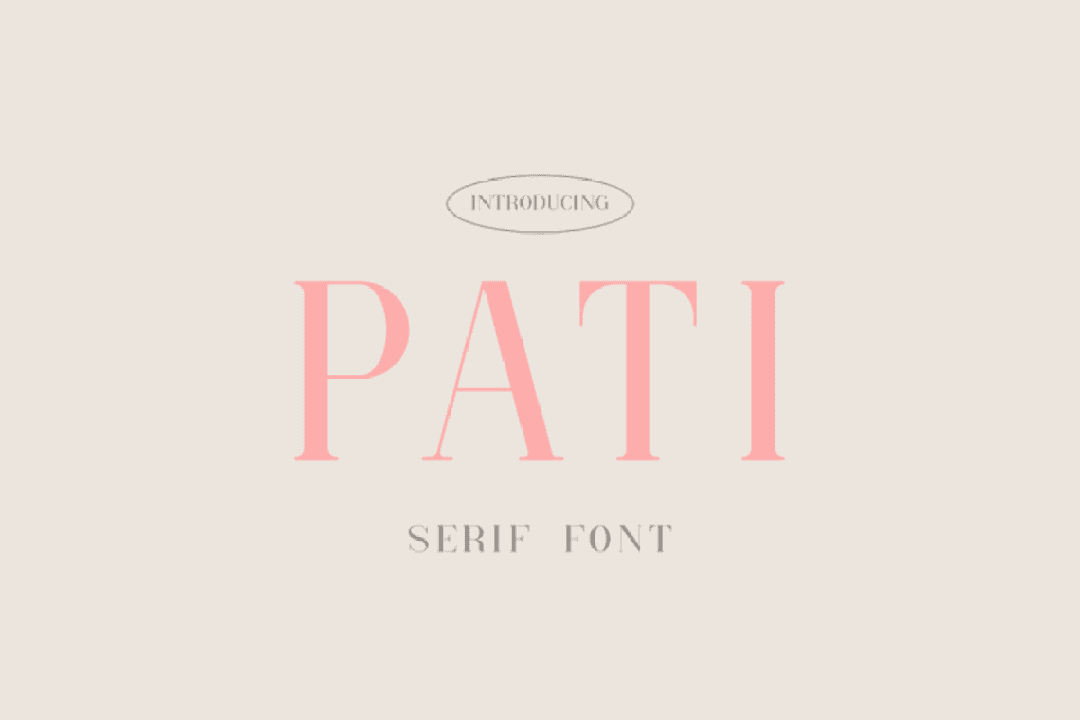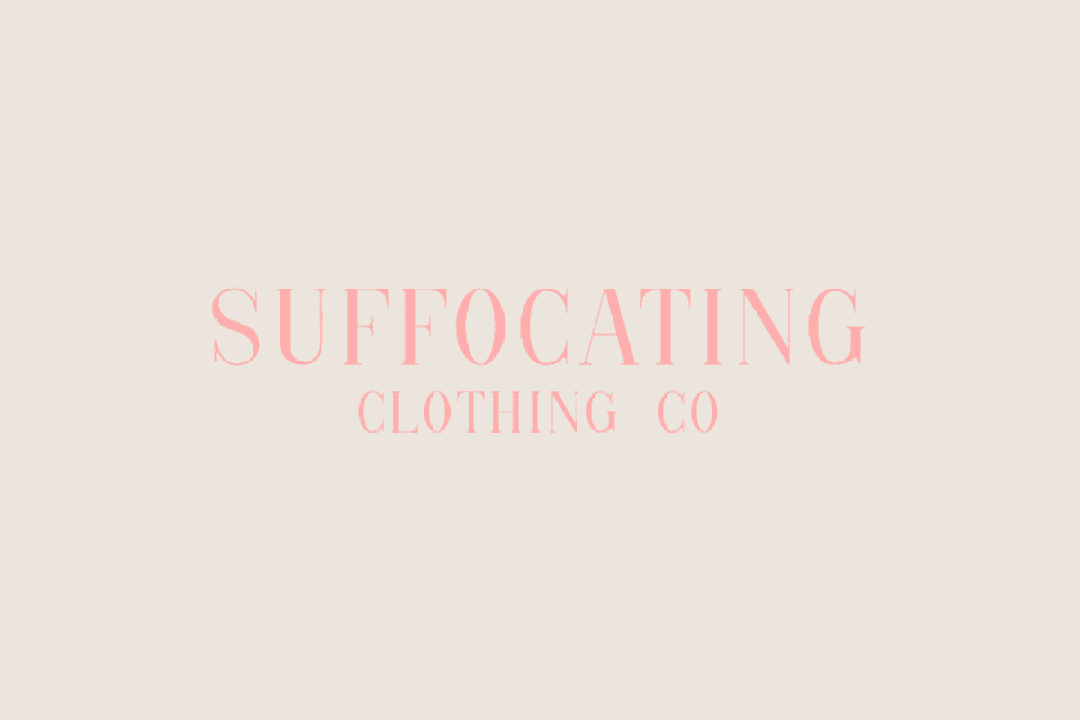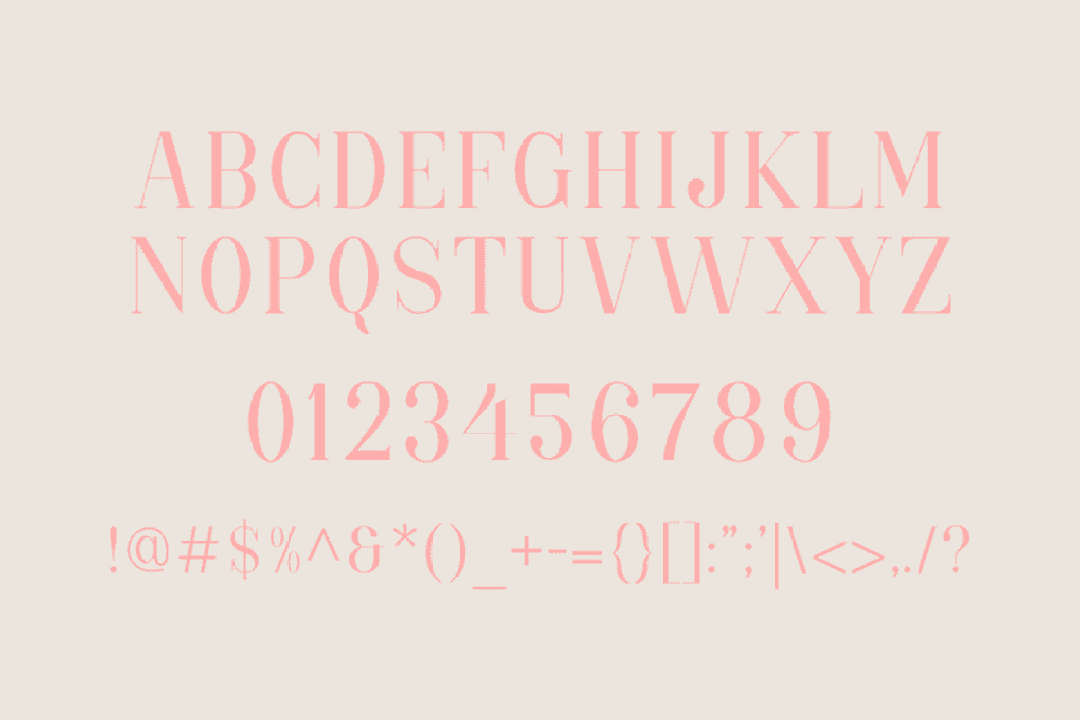
Pati is an elegant yet simple serif font, ideal for many kinds of projects and ideas that need an emphasis on creativity. Add it to your creative ideas and watch how they shine!